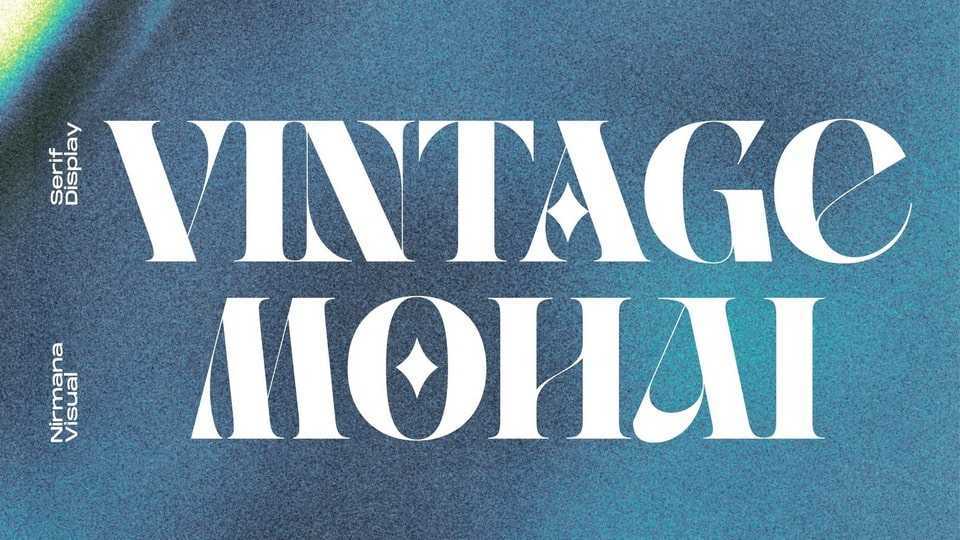
Download Vintage Mohai font, a cool, futuristic, and modern display typeface. Vintage Mohai is perfect for editorial projects and designs such as logo, branding, or pretty much any design that requires a vintage an exquisite touch.